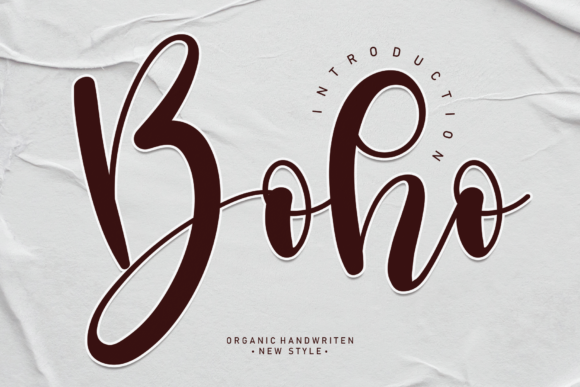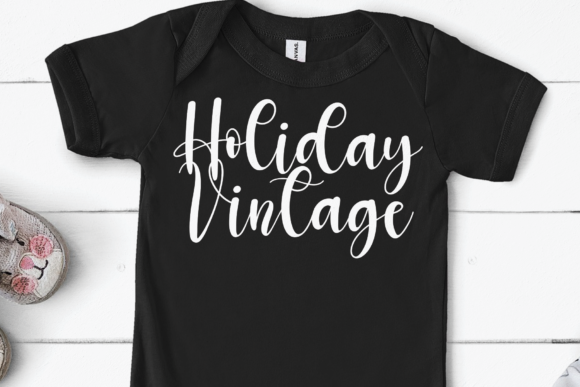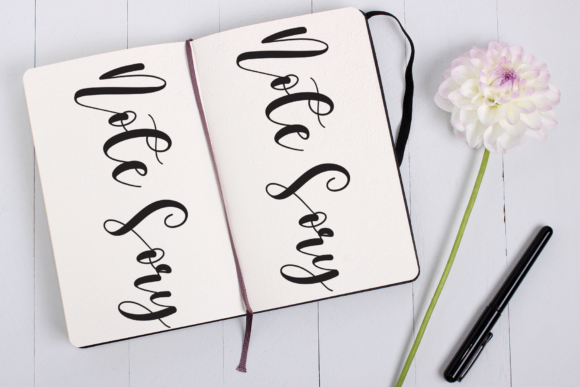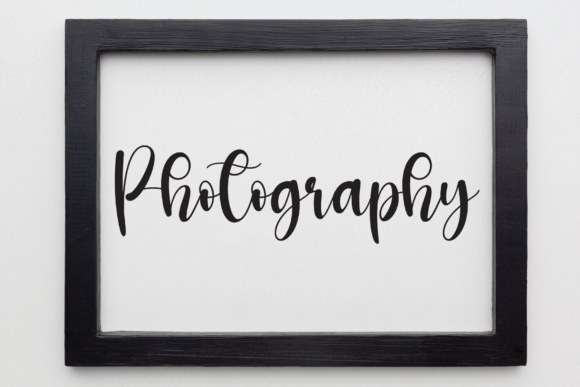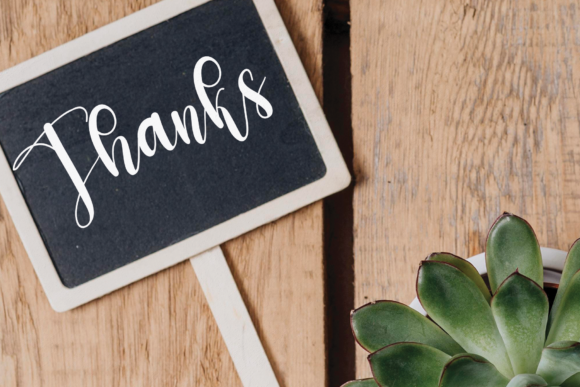
Boho Font
About Boho Font
Boho is a beautiful and sweet calligraphy typeface with characters that dance along the baseline. It will add a luxury spark to any design project that you wish to create!